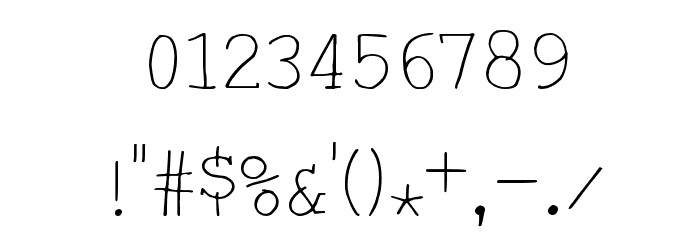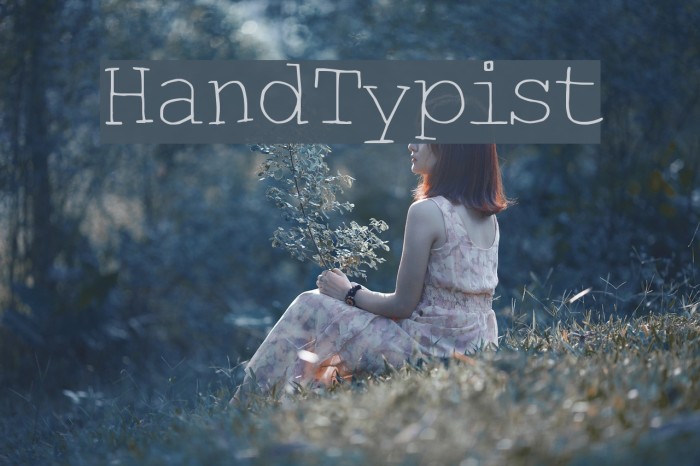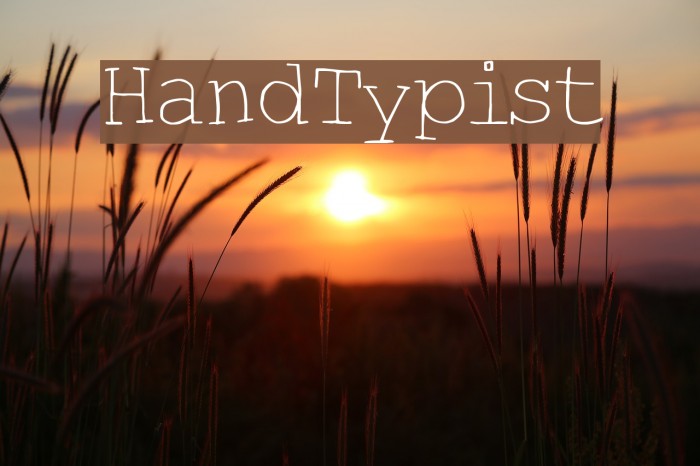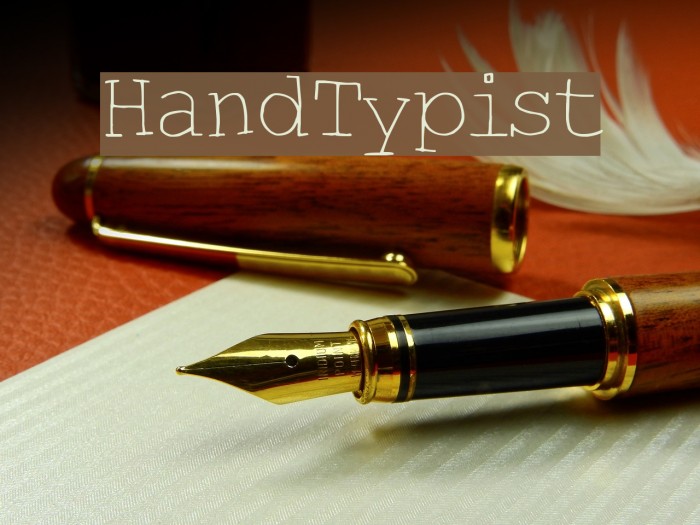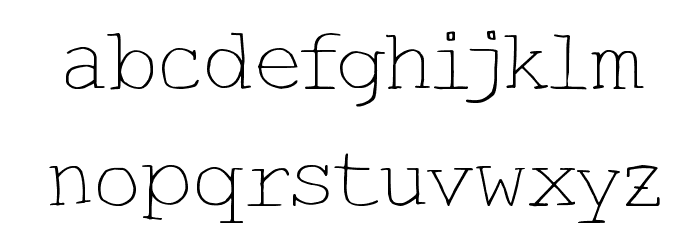
HandTypist Font
HandTypist Description
This font features a handwritten style that mimics the look of casual, freehand writing. The characters have a playful and informal appearance, with slightly irregular lines that add a personal touch. The uppercase and lowercase letters maintain a consistent style, with rounded edges and a slight tilt, giving them a dynamic and lively feel. The numerals and special characters complement the alphabet with similar characteristics, ensuring a cohesive look across all glyphs. This font is ideal for projects that require a personal, approachable, and friendly aesthetic.
A playful, handwritten font with a casual and informal style from Uncategorized fonts.
- Proposed Projects: Greeting cards, invitations, personal blogs, children's books, and casual branding.
- Overall Style: Casual, Playful
- Use Case: Headlines, Informal text, Personal projects